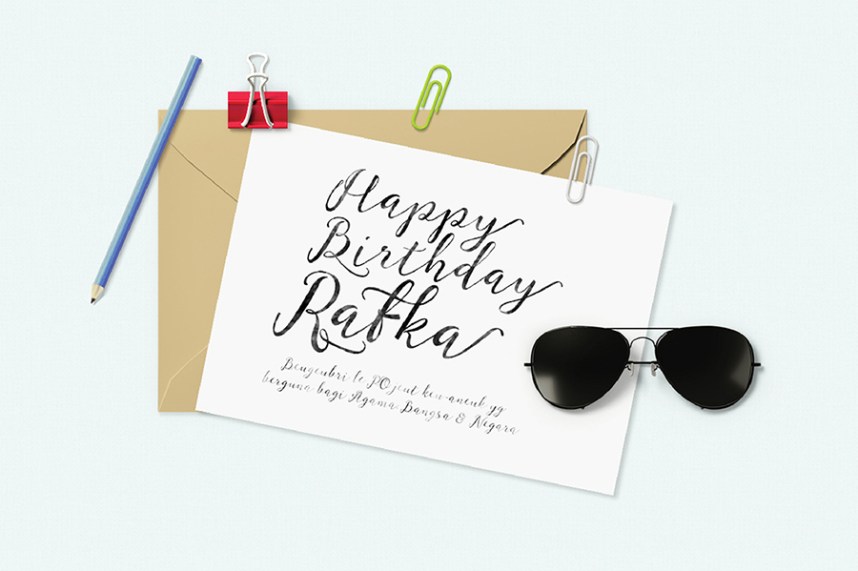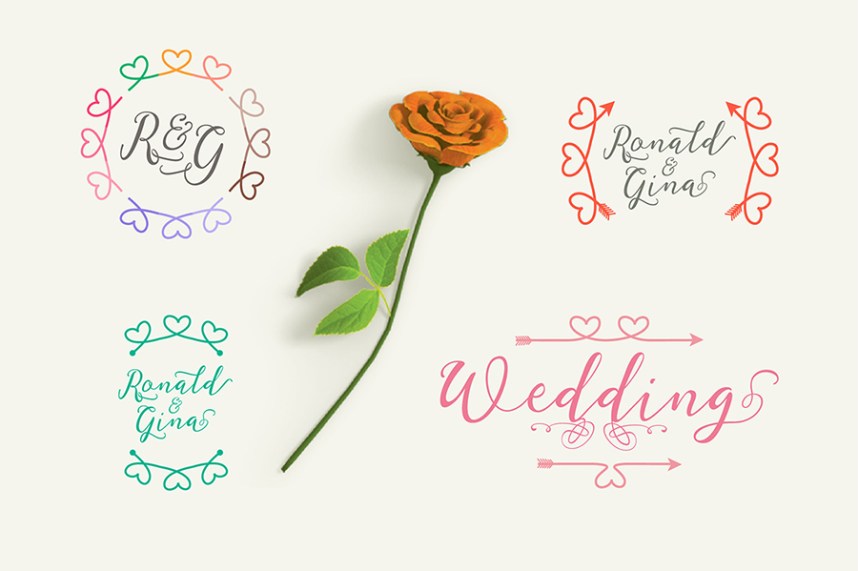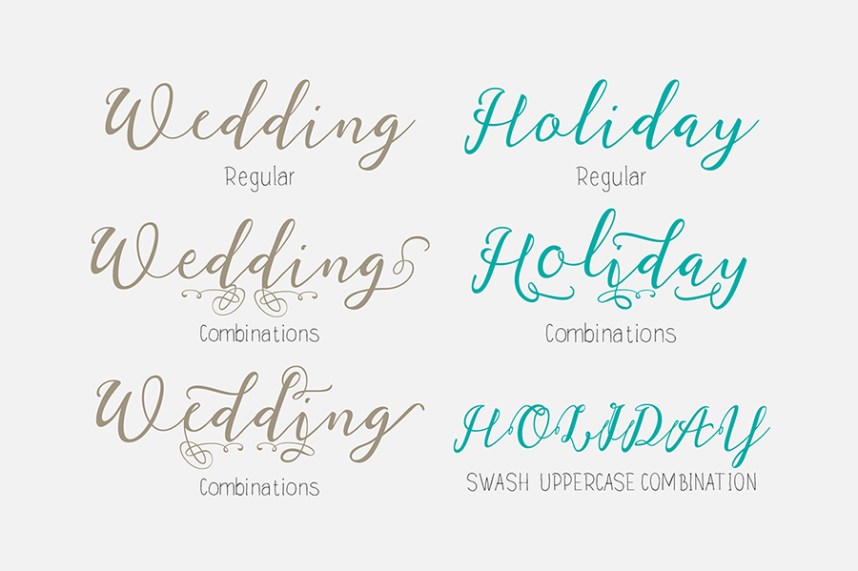
Rafka Free Demo
Rafka-Script is a new calligraphy font and simple style, incorporating of copper to type letters on the basis of contemporary dancing, classical and elegant touch. Can be used for various purposes. such as title, signature, logo, wedding invitations, t-shirts, letterhead, signage, labels, newsletters, posters, badges etc.